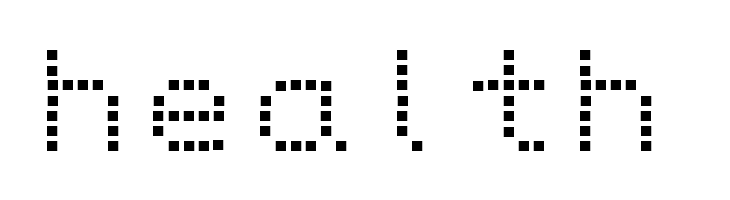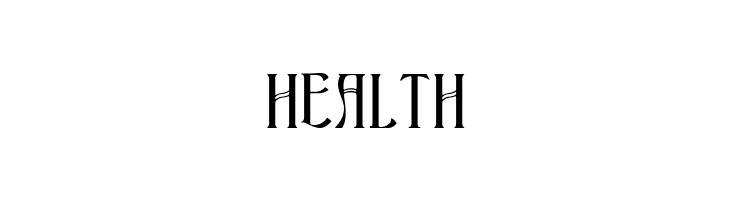
( Bafio )
A classic serif font with high contrast and elegant serifs.
( Colorful Typhoon - www.geocities.jp/kitschlabo/ )
A playful, hand-drawn font with an informal and approachable style.
( Font Emporium - web.archive.org/web/20020126112915/www.fontemporium.com/ )
A bold, rugged font with jagged edges and a distressed appearance.
( Font Monkey - www.fontmonkey.com )
A playful, hand-drawn font with rounded edges and uniform character height.
( George Williams - web.archive.org/web/20051223080638/bibliofile.mc.duke.edu/gww/fonts/fonts.html )
A decorative font with elegant, artistic letterforms and playful curves.
( GroovyJournal - www.groovyjournal.com )
A playful, whimsical font with bold uppercase and fluid lowercase characters.
( LJ Design Studios - www.ljdesignstudios.com )
A bold, distressed font with a grunge aesthetic and vintage appeal.
( Out Of Step Font Company - outofstepfontco.com )
A bold, geometric outline font with a retro, pixelated style and an italic slant.
( Out Of Step Font Company - outofstepfontco.com )
A bold, 3D block-style font with a pixelated, digital look.
( Paul Grosse - grosse.is-a-geek.com/paul/ttf01.htm )
A dot matrix style font with a retro digital aesthetic.